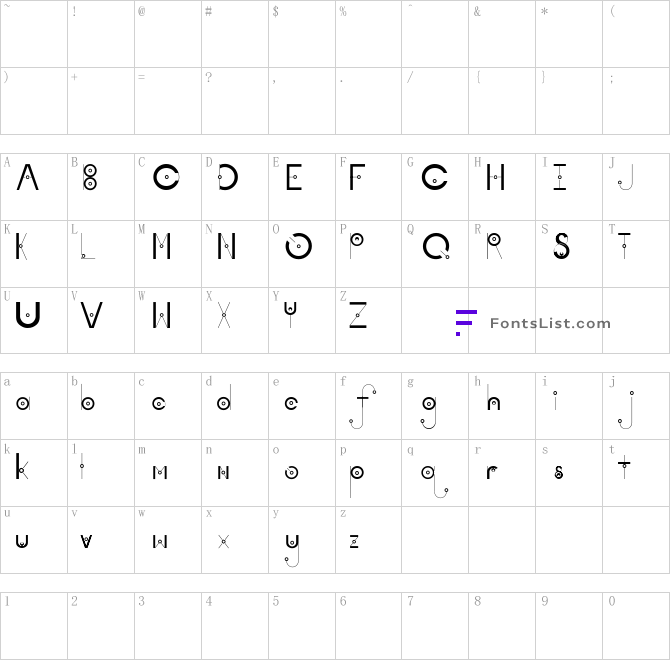
- Font Name:Bea
Bea.ttf is a very beautiful artistic font, Bea.ttf is widely used in the design and printing of various books and pictures,Bea.ttf has a strong visual impact,Bea.ttf is a commonly used font in newspapers, magazines and books, and is used in posters, e-commerce Poster design, store design, logo design, font design and other fields.Bea.